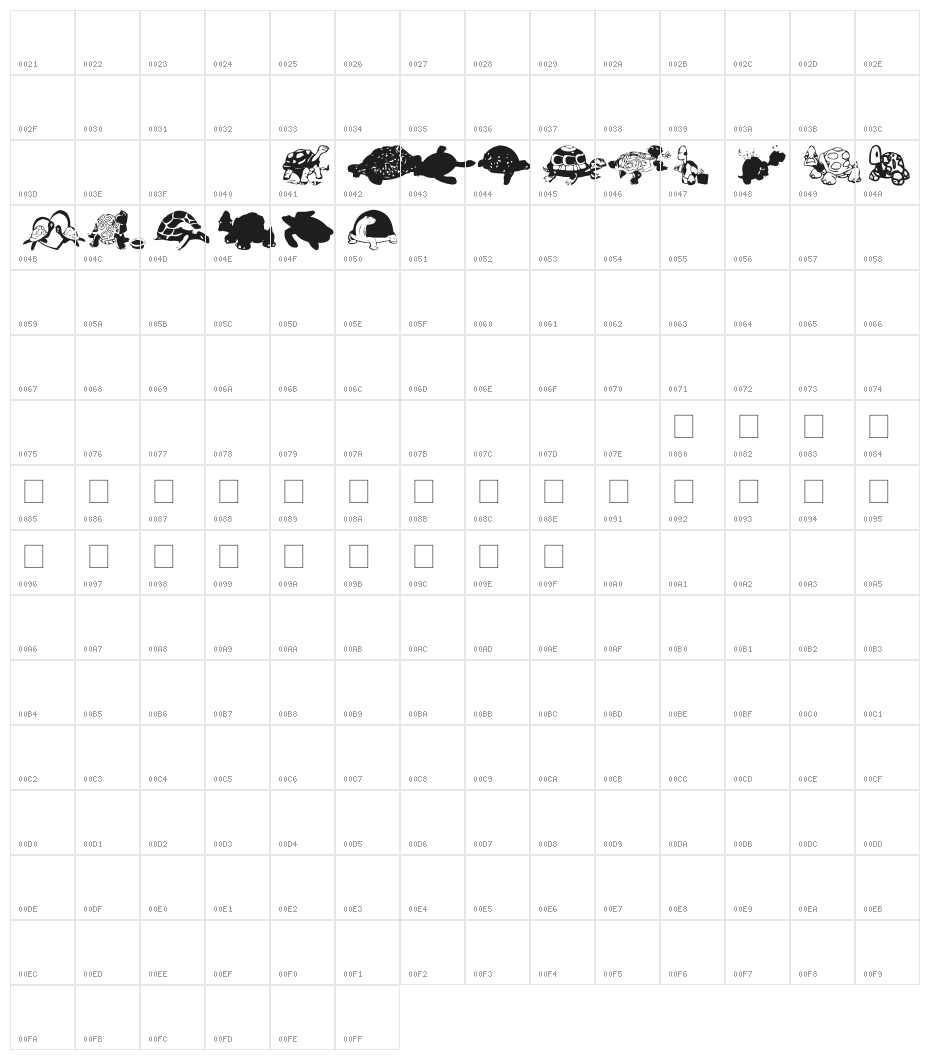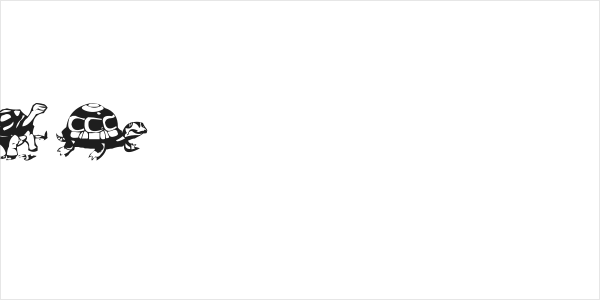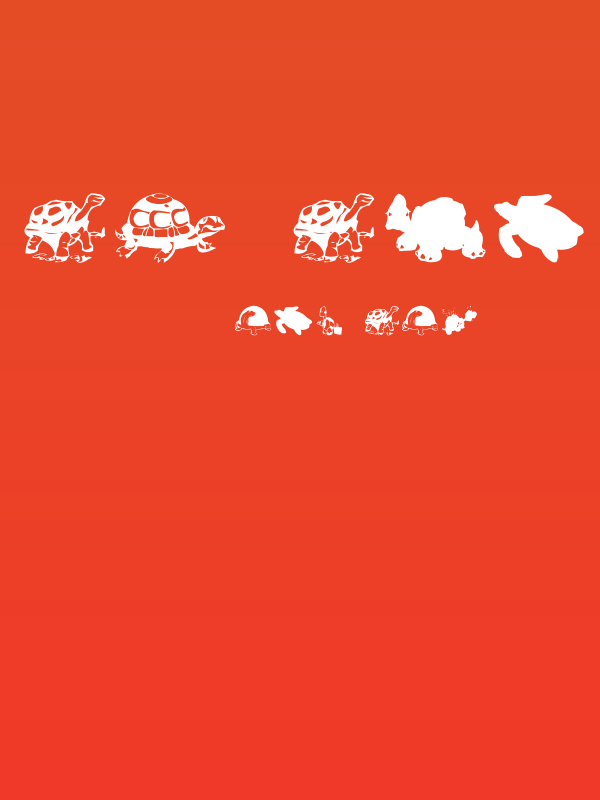
AEZ another turtle font Font
AEZ another turtle font Description
This is a decorative font featuring a series of turtle illustrations. Each character is represented by a unique turtle design, showcasing various poses and styles. The font is playful and whimsical, making it suitable for creative projects that require a fun and lighthearted touch. The turtles are detailed, with some showcasing patterns on their shells and others in different positions, adding variety and charm to the font. This font is ideal for projects that aim to capture attention with its unique and engaging style.
| Overall Style | Whimsical, Playful, Decorative |
| Use Case | Logos, Decorative headings, Creative projects |
| Proposed Projects | Ideal for children's books, educational materials, greeting cards, and playful branding projects. |